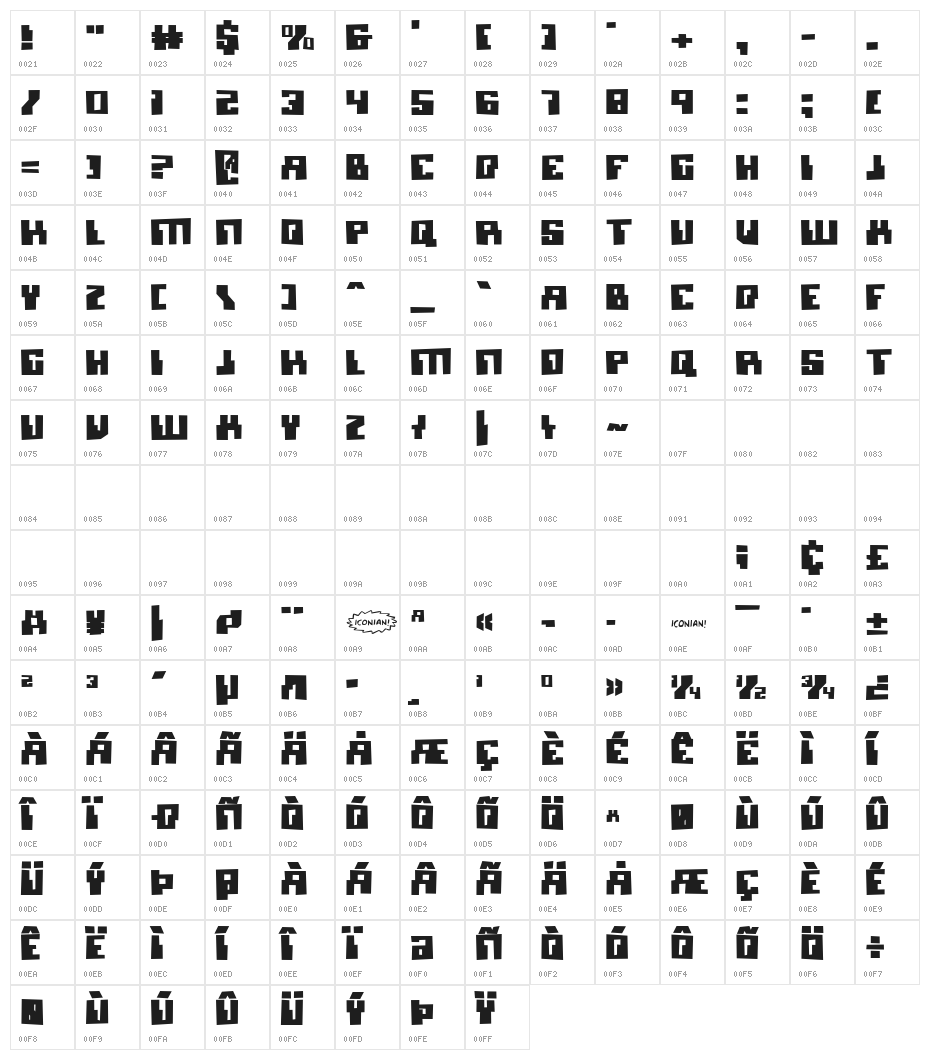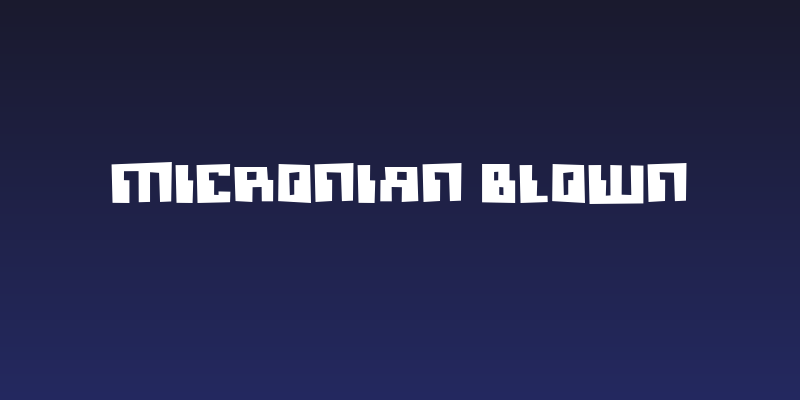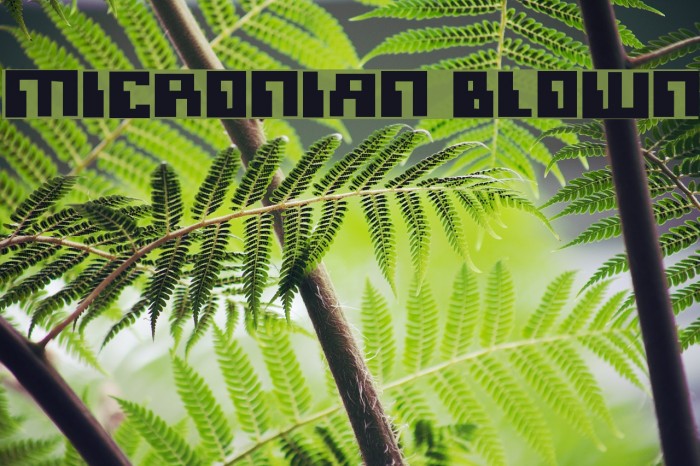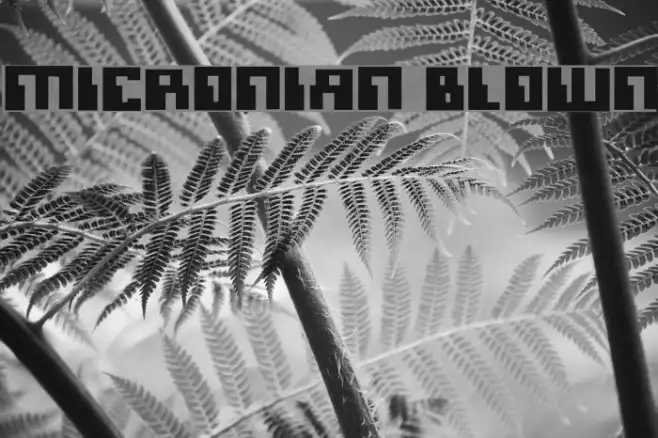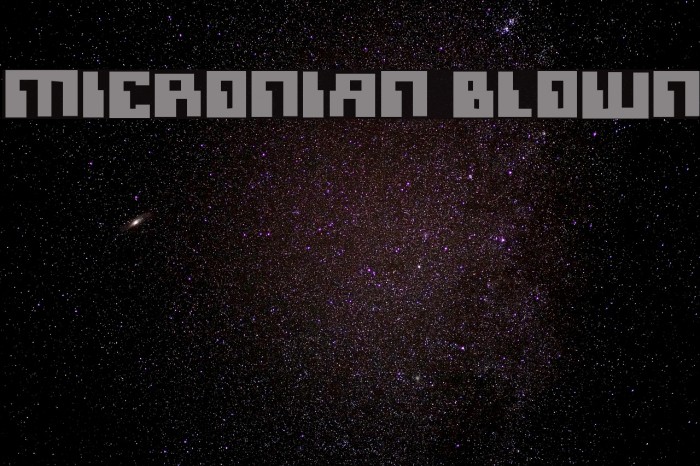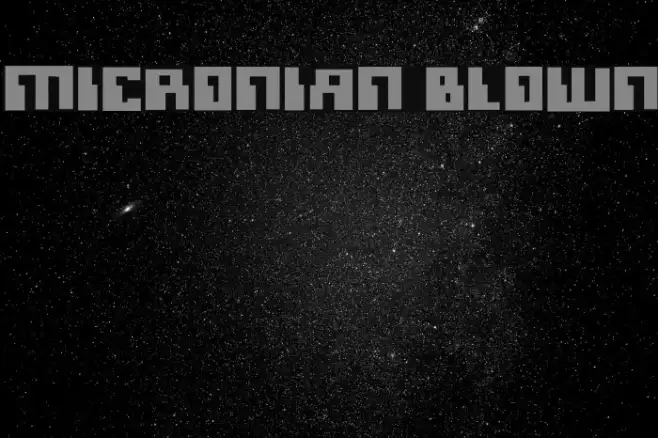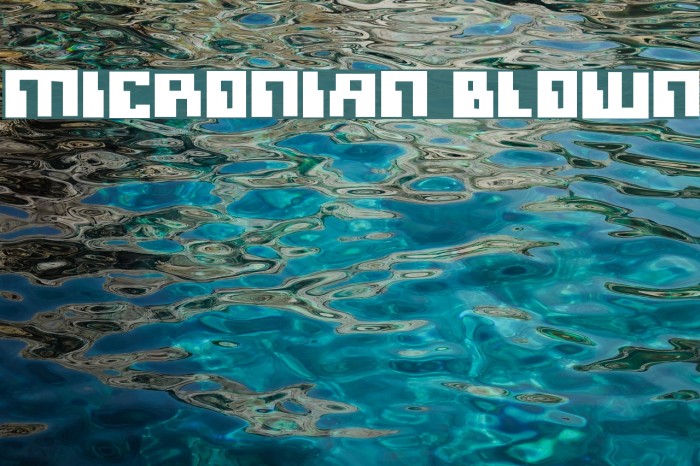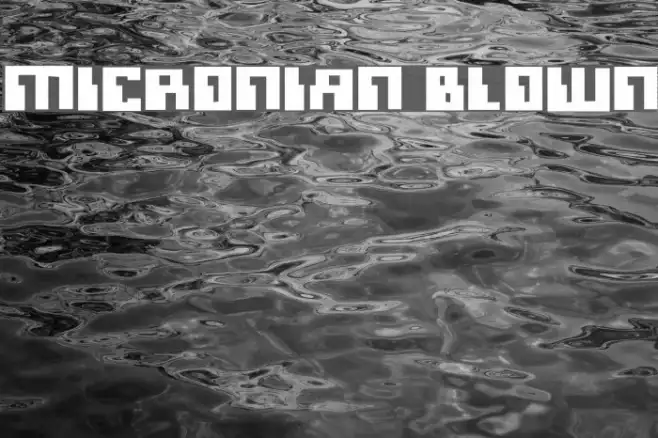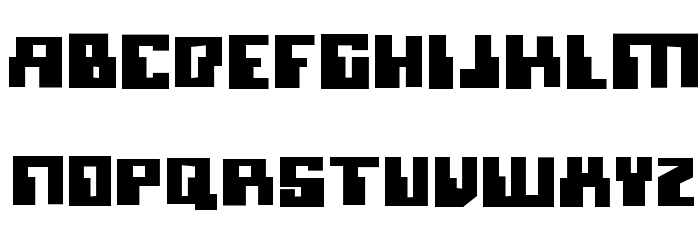
Micronian Blown Font
Micronian Blown Description
This font features a bold, geometric design with a strong, blocky appearance. Each character is constructed with sharp angles and straight lines, creating a futuristic and industrial feel. The uppercase and lowercase letters maintain a consistent height, emphasizing uniformity and balance. Numbers and special characters follow the same design principles, ensuring a cohesive look across all glyphs. The font's thick strokes and lack of curves give it a commanding presence, making it ideal for attention-grabbing headlines or logos. Its unique style is both modern and slightly retro, reminiscent of digital or sci-fi aesthetics.
| Proposed Projects | Ideal for sci-fi themed projects, video game titles, tech branding, and posters. |